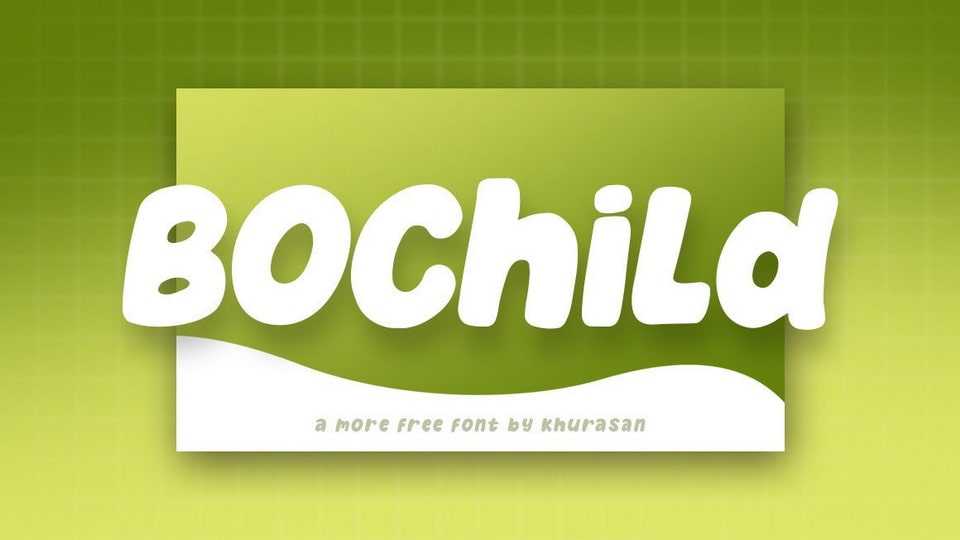
Download Bochild font, a bold yet soft and rounded handwritten typeface with a friendly look. Bochild font is perfect for posters, logos, magazines, book covers, banners, and many more